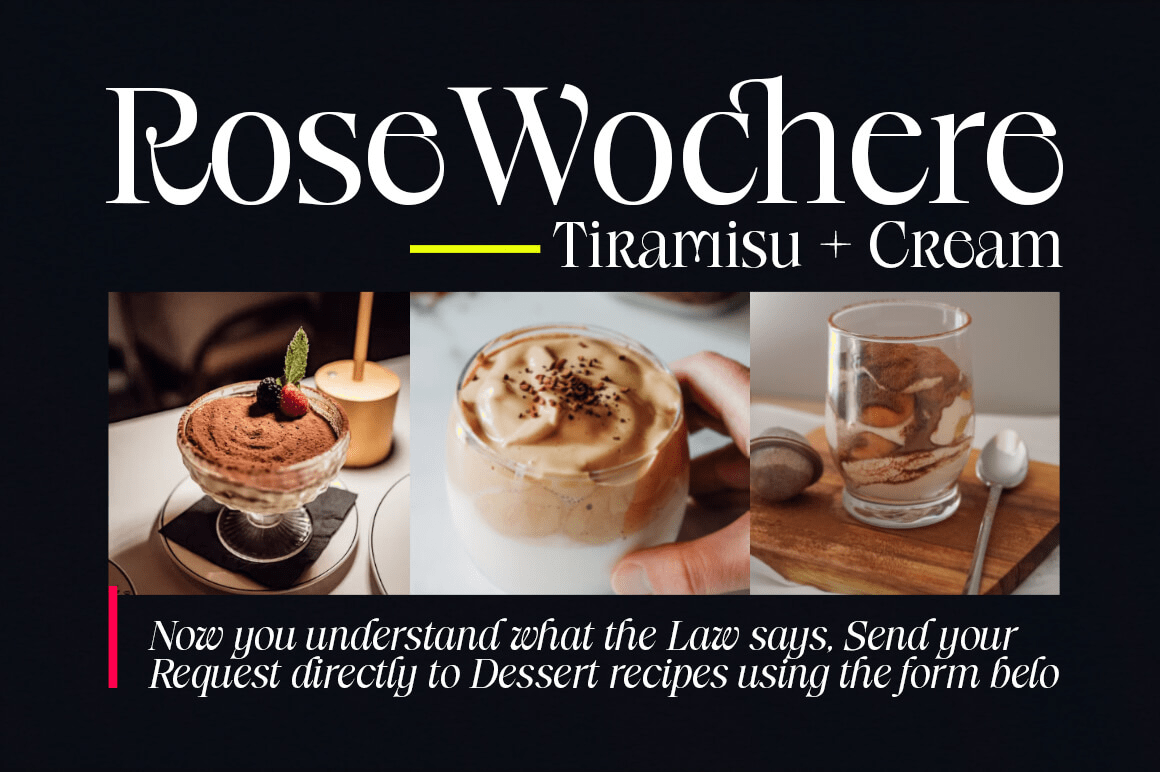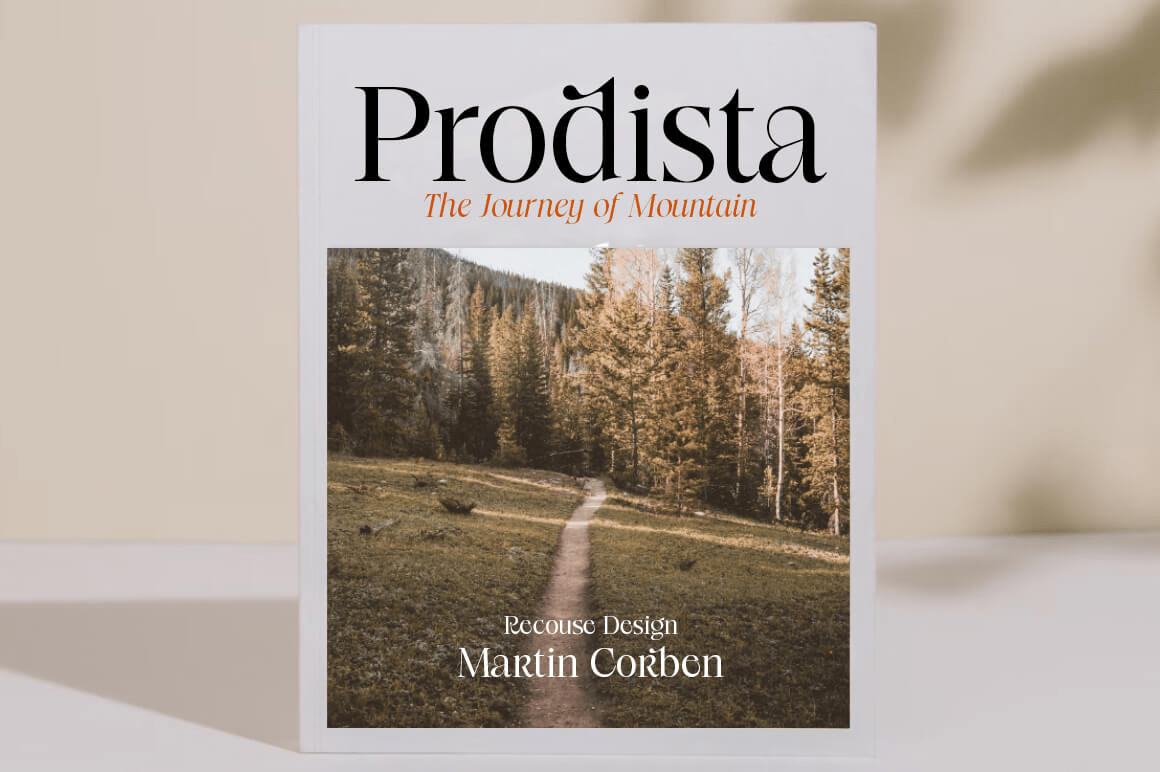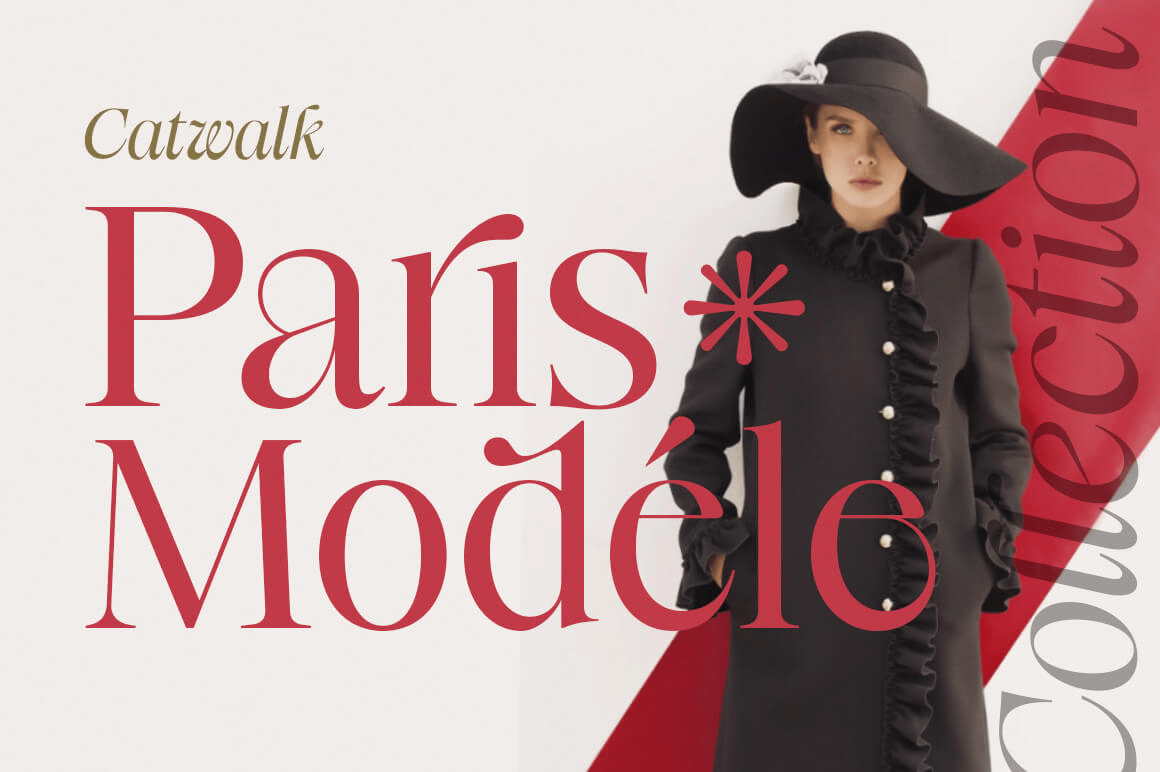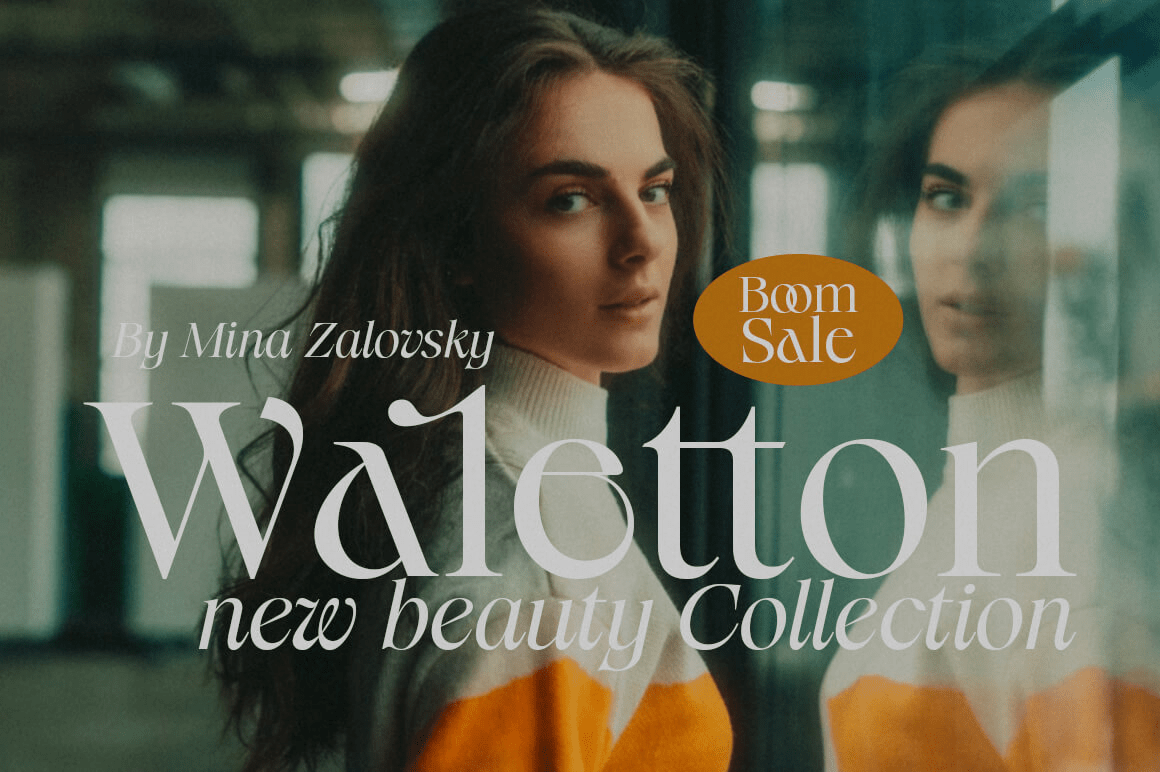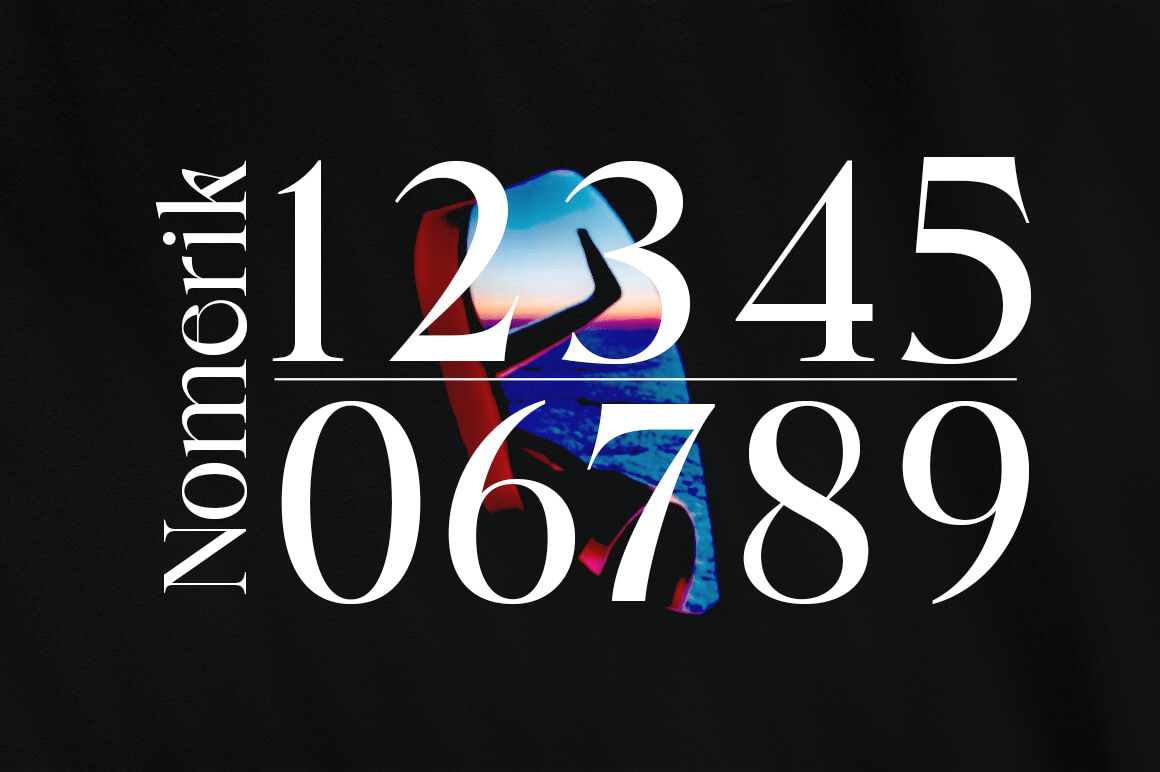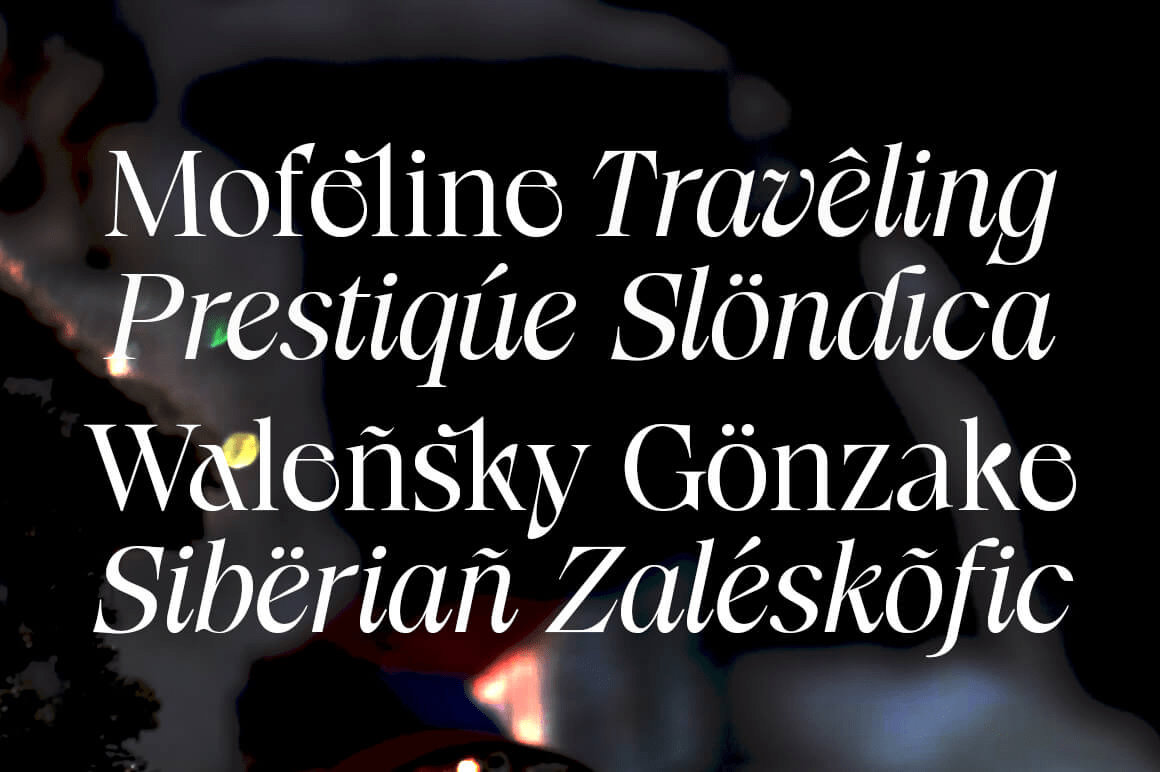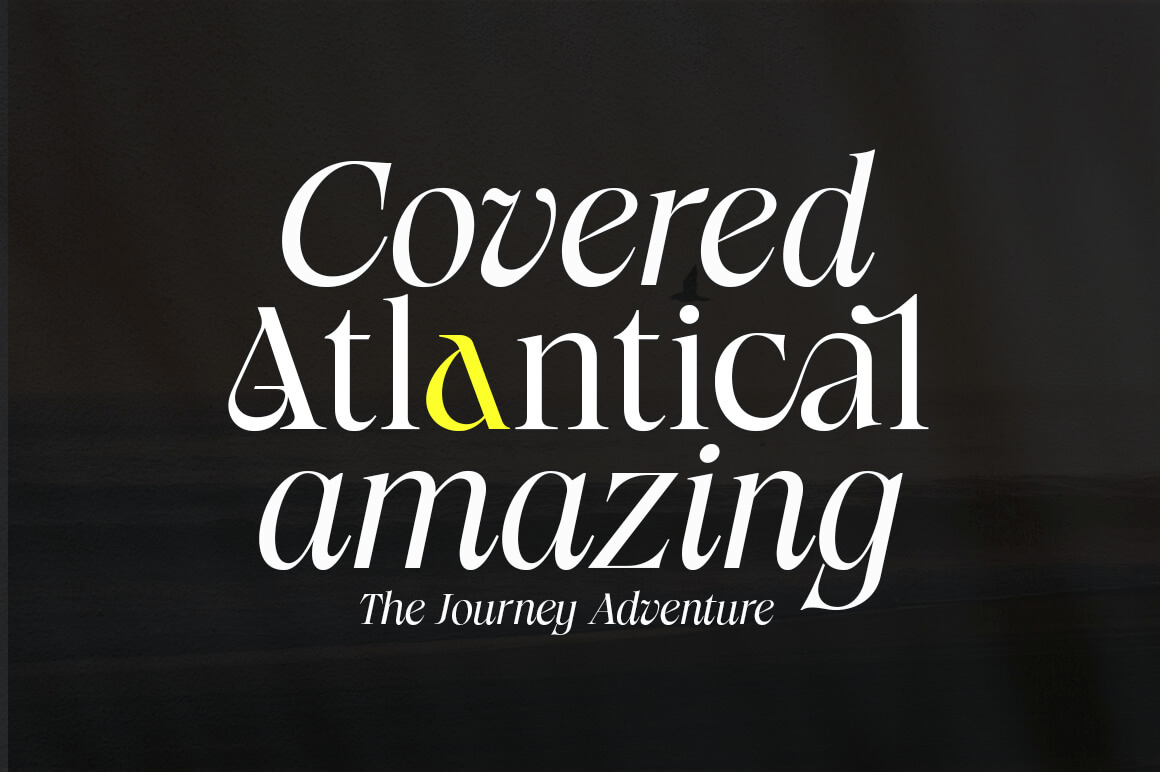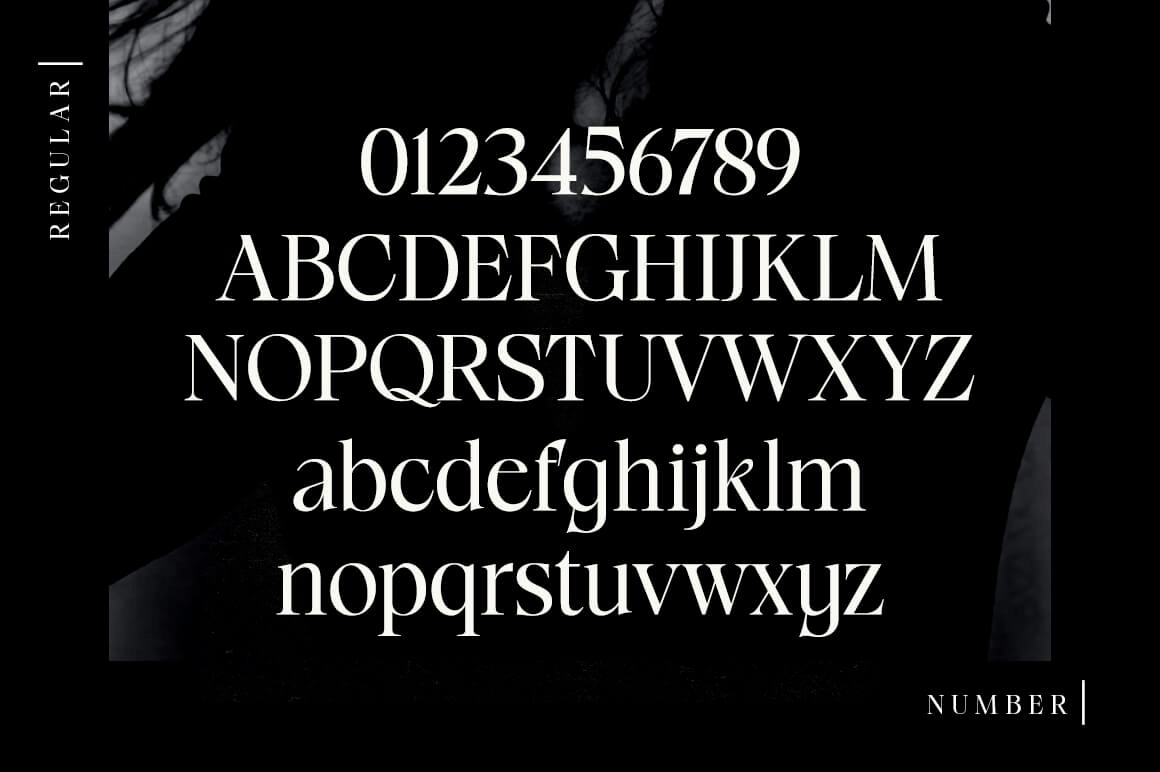
Radilen Aveline
About Radilen Aveline
Introducing a fancy serif font with italics. Radilen Aveline is a series of elegant serif fonts that give traditional design elements a modern feel with their clean lines, smooth curves and sharp details making them suitable for a variety of your design…